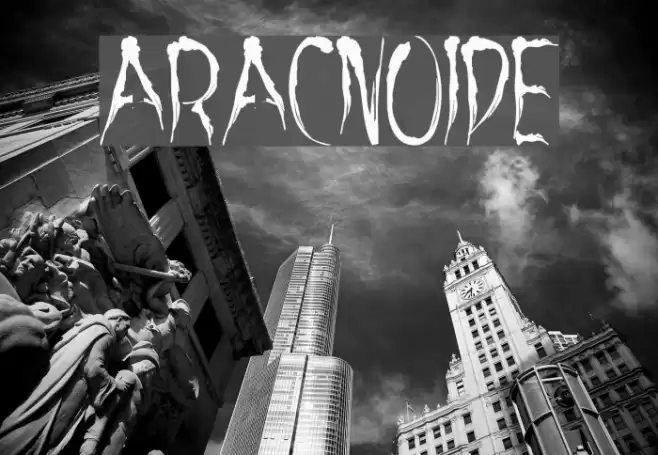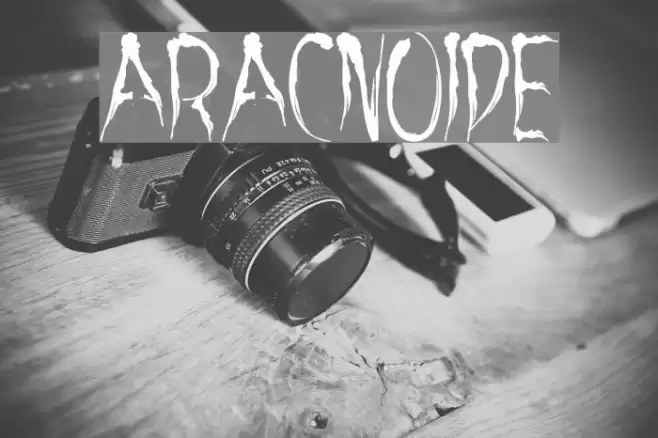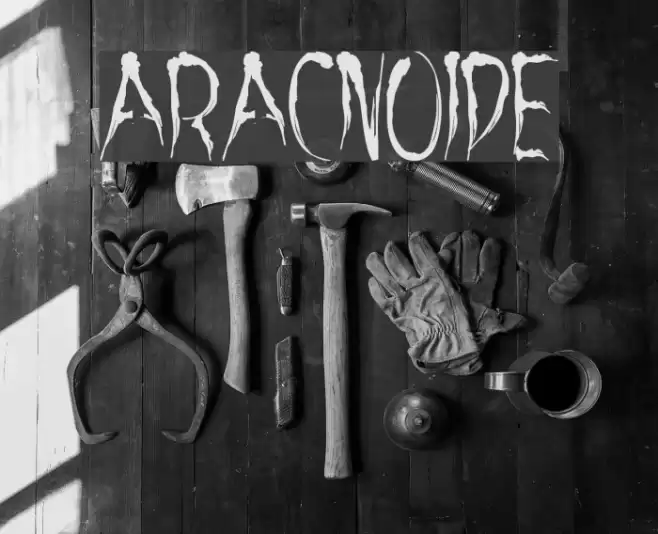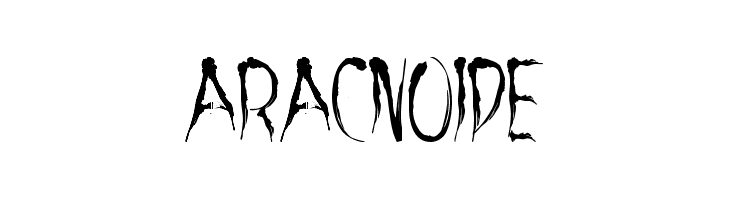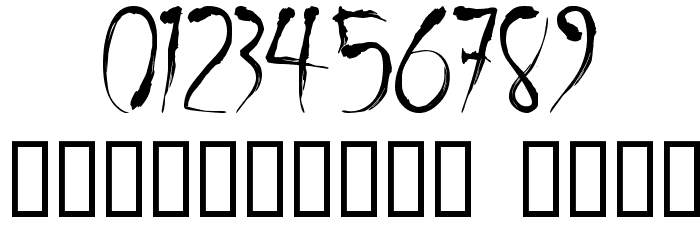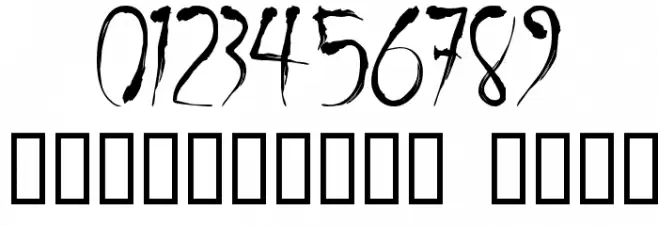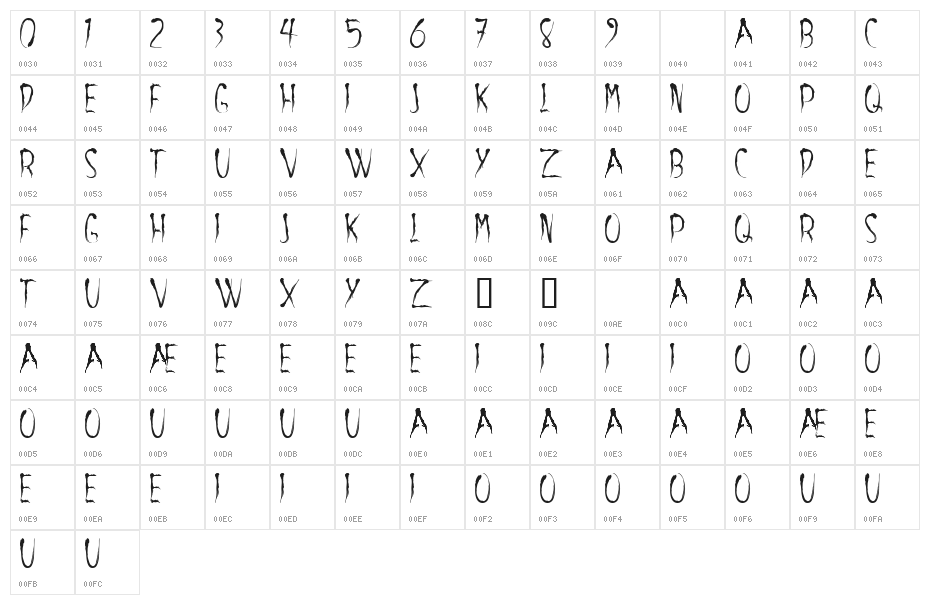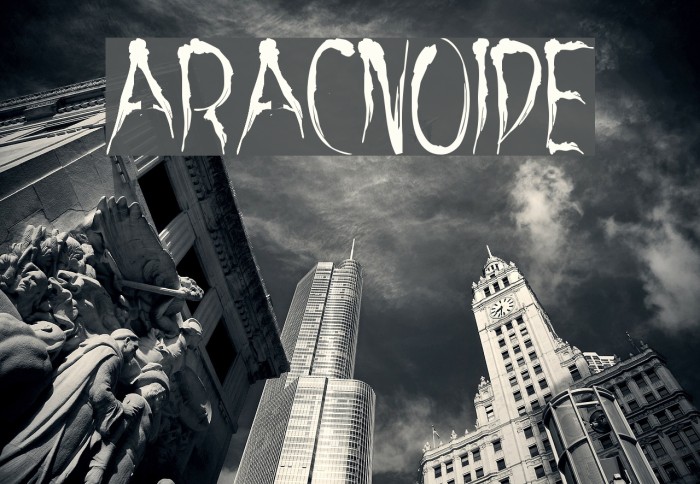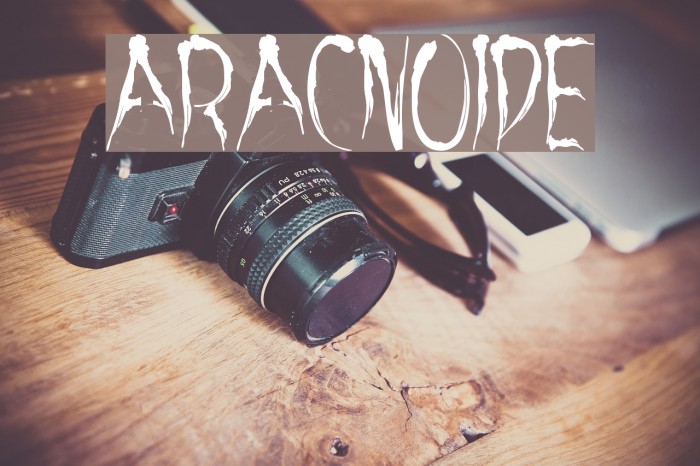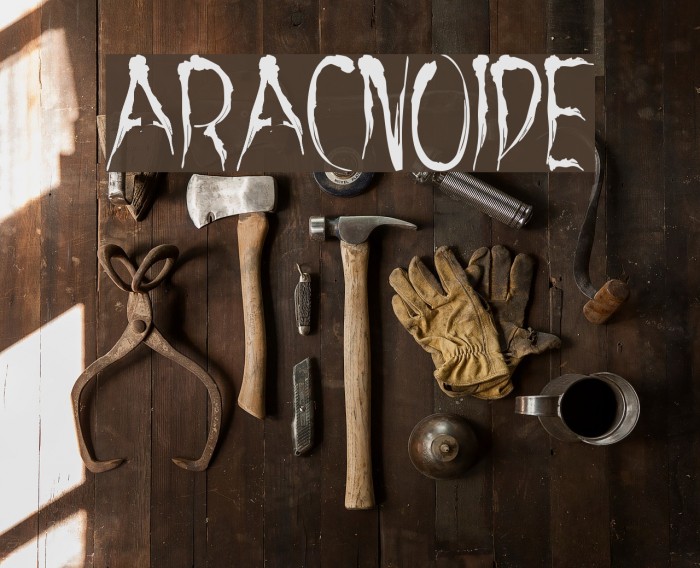
aracnoide Font
aracnoide Description
This font features a highly decorative and eerie style, characterized by its sharp, elongated strokes and irregular, jagged edges. The letters appear as if they are dripping or melting, creating a sense of movement and unease. This design is reminiscent of horror themes, making it ideal for projects that require a spooky or unsettling aesthetic. The uppercase and lowercase letters maintain a consistent style, with numbers following the same design principles. The special characters are missing, which may limit its use in some contexts.
A decorative, horror-themed font with sharp, dripping strokes from Uncategorized fonts.
- Proposed Projects: Ideal for Halloween-themed designs, horror movie posters, haunted house flyers, and any project needing a spooky atmosphere.
- Use Case: Headlines, Posters, Themed Events